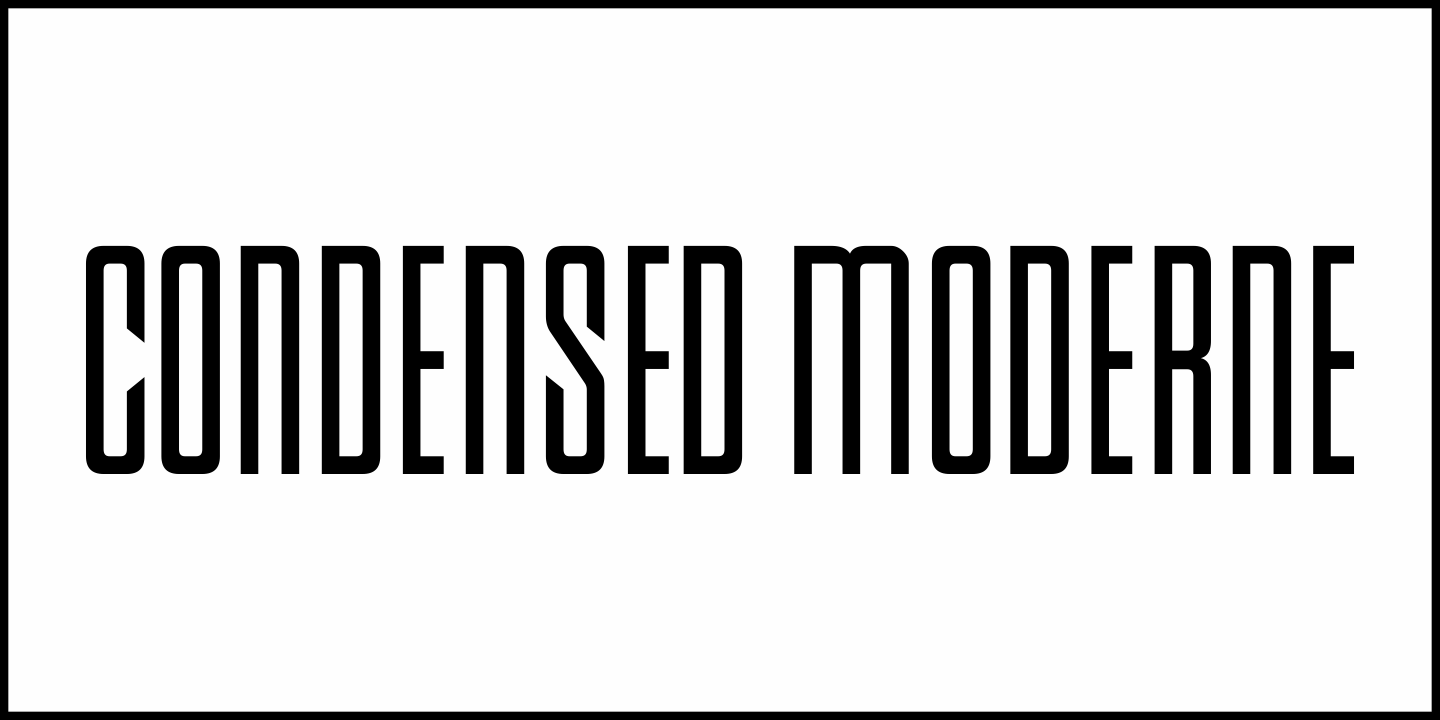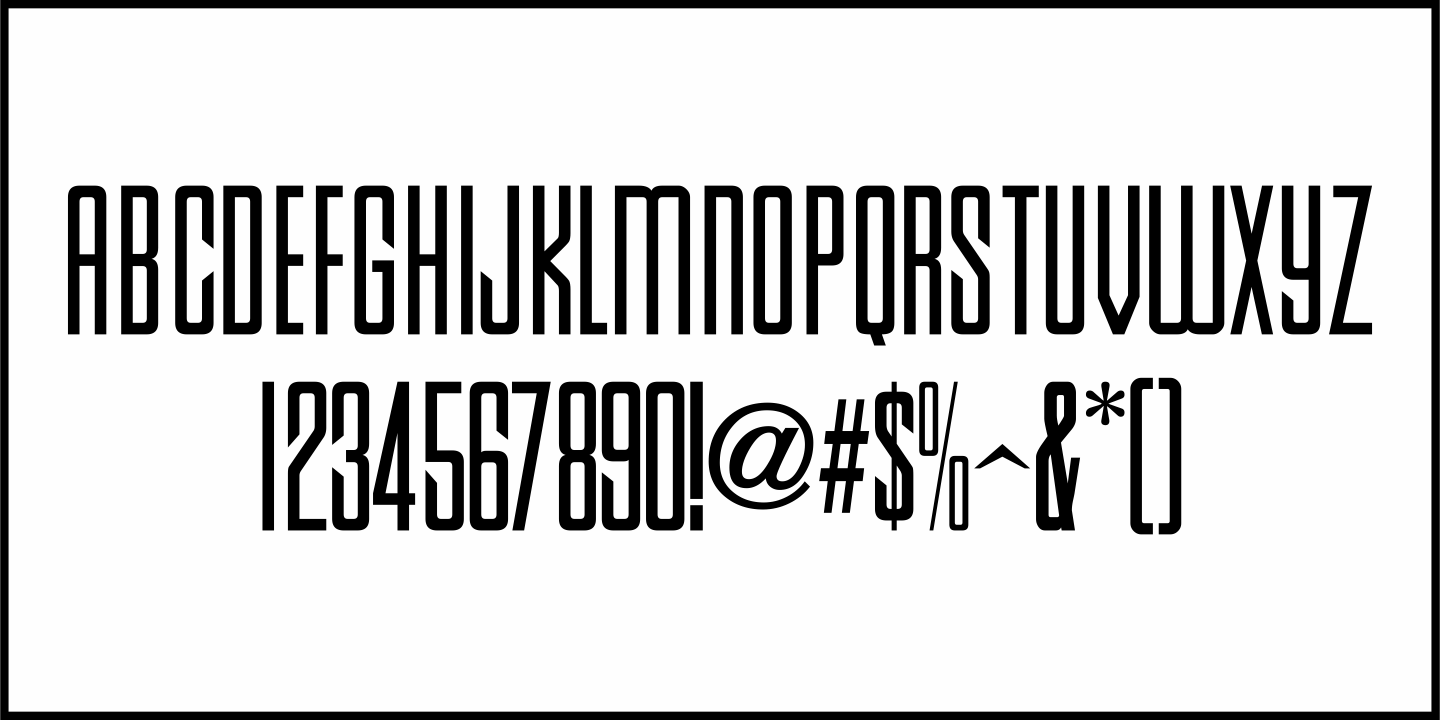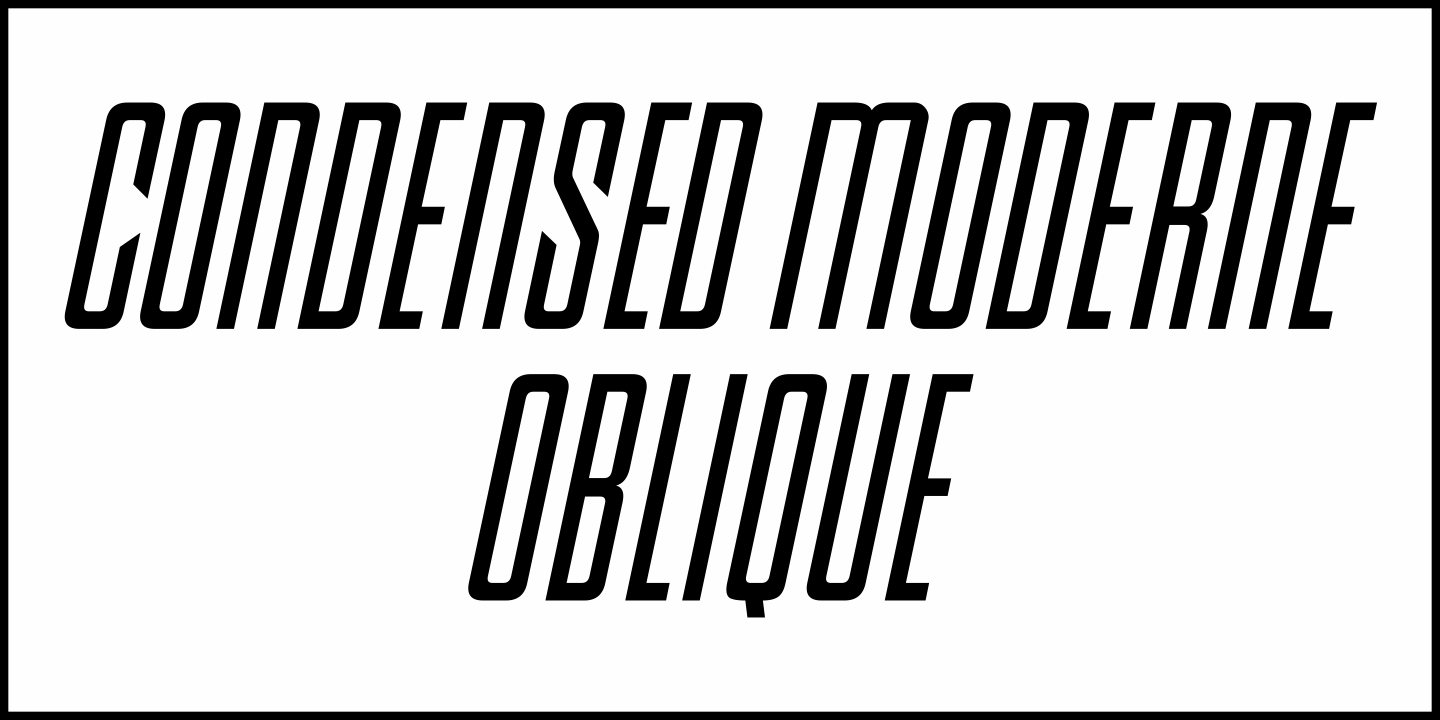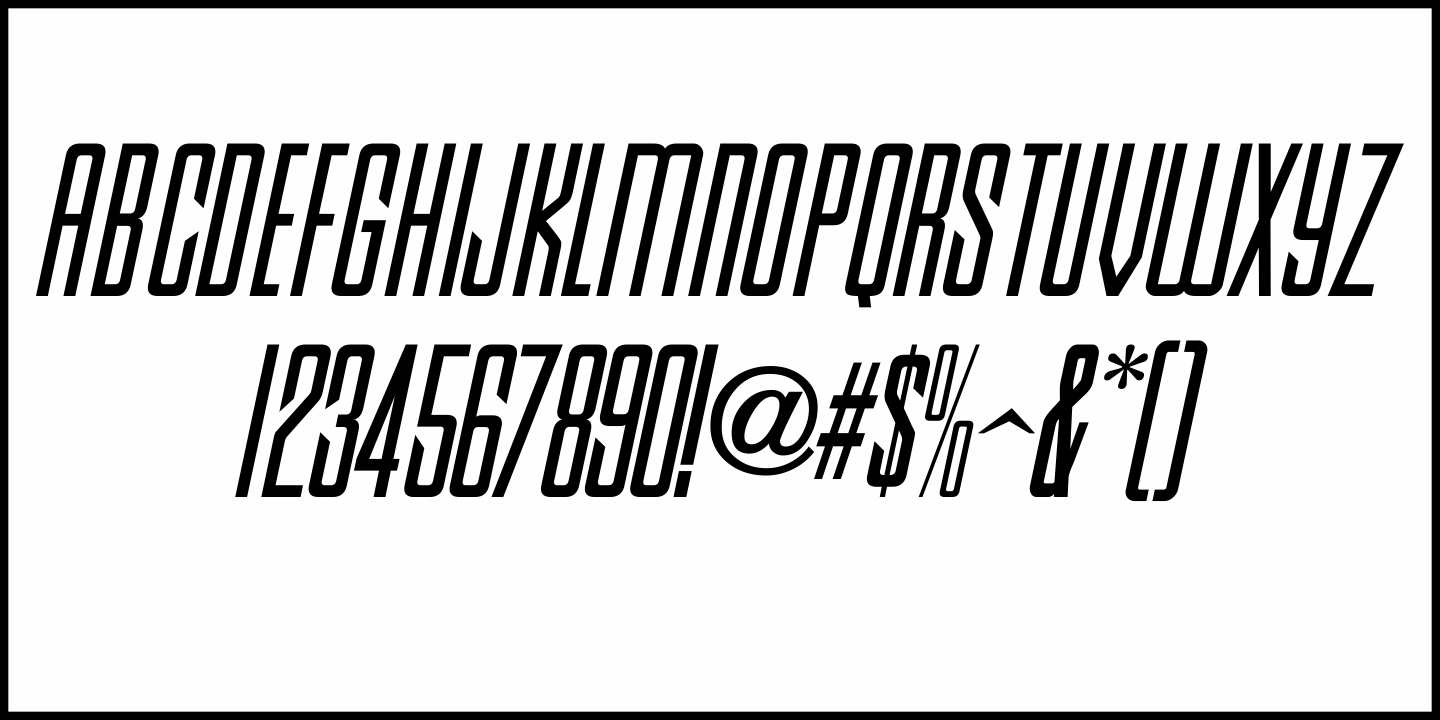
Condensed Moderne
The Dec., 1936 - Jan., 1937 edition of Radio Mirror offered up a condensed, hand lettered sans serif type design that - although an Art Deco style- is also somewhat futuristic in design.
This is now available as Condensed Moderne JNL in both regular and oblique versions.